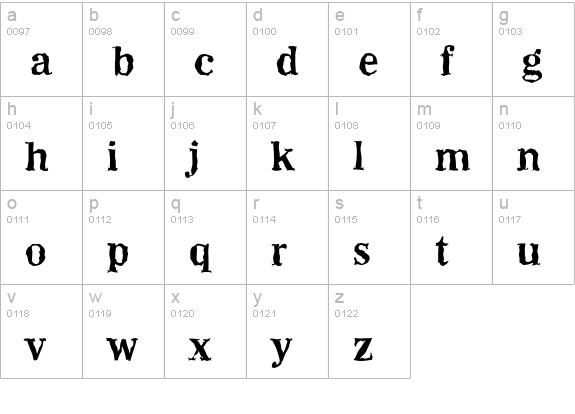
WichitaRandom-Bold is a strong, high-contrast variant in the WichitaRandom typeface family \xE2\x80\x94 well suited to headlines, attention-grabbing titles, and strong calls-to-action.
WichitaRandom-Bold is a bold and eye-catching typeface that is perfect for making a statement in your designs. With its unique and quirky style, this font is sure to grab attention and add a touch of originality to any project. Whether you're creating posters, logos, or social media graphics, WichitaRandom-Bold will help your text stand out in a memorable way. The best part? WichitaRandom-Bold is completely free to download at FontsMarket.com. Take advantage of this fantastic offer and enhance your designs with this one-of-a-kind font today!